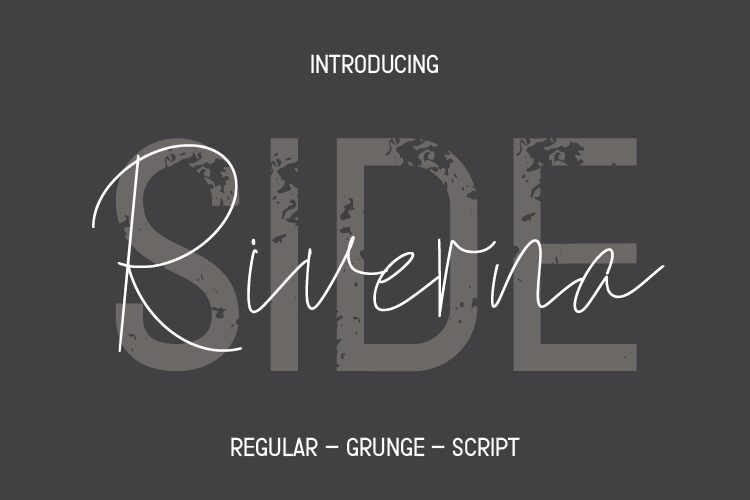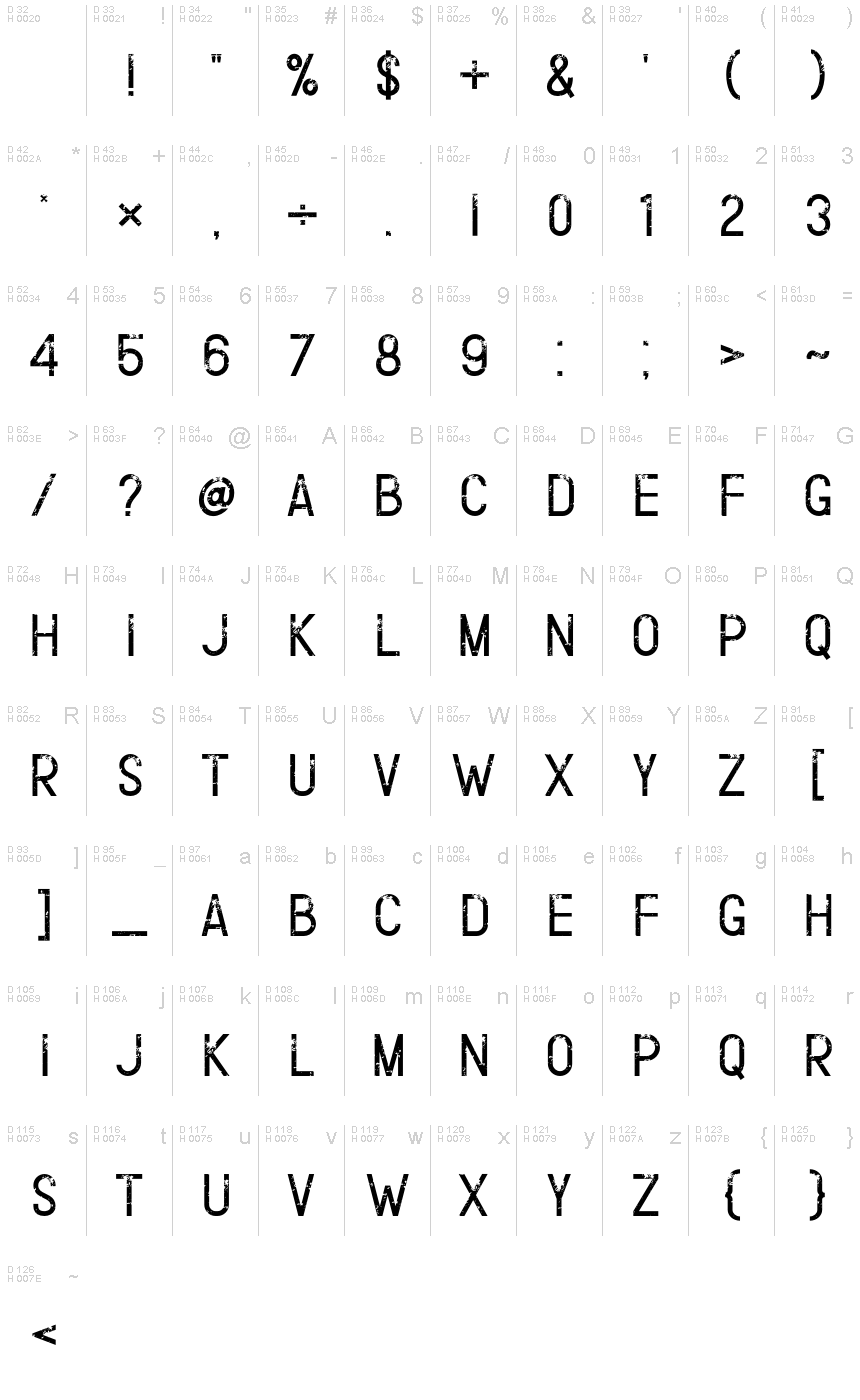
Riverna Side Grunge
Riverna Side Grunge, a captivating display font crafted by Rvandtype, exudes a grunge-inspired essence that commands attention. Its eroded, weathered appearance lends an edgy, industrial vibe, effectively evoking a sense of rugged authenticity. The font's distinct character sets it apart, making it a standout choice for designers seeking to infuse their projects with a bold, gritty aesthetic.
Riverna Side Grunge's versatility extends beyond its visual appeal, making it a compelling option for a diverse range of design applications. Its striking features and versatile nature make it a natural fit for branding, packaging, editorial layouts, and digital interfaces where a strong, impactful presence is desired. Embracing the font's unique character can elevate the overall visual impact, leaving a lasting impression on the audience.